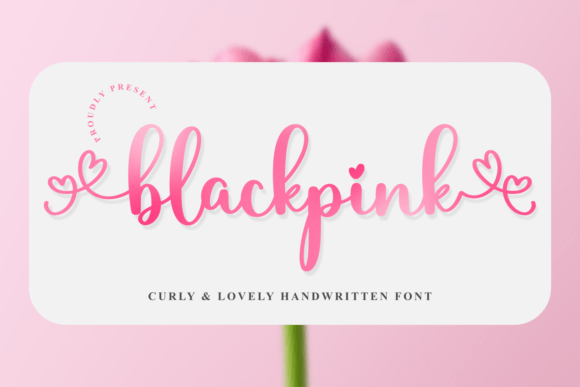
Blackpink Font: The Sweet and Curly Handwritten Script Font to Elevate Your Designs
Are you looking for a font that can add a touch of elegance and playfulness to your designs? Look no further than the Blackpink Font, a beautiful curly and sweet handwritten script font that is sure to make your designs stand out. In this article, we’ll explore the features and benefits of the Blackpink Font, and how you can use it to elevate your logos, labels, branding, invitations, websites, quotes, and more.
What is Blackpink Font?
Blackpink Font is a type of handwritten script font that is designed to mimic the elegant and flowing curves of handwritten writing. It is a curly and sweet font that is perfect for adding a touch of whimsy and playfulness to your designs. The font is highly legible and versatile, making it suitable for a wide range of applications, from logos and branding to invitations and websites.
Features of Blackpink Font
The Blackpink Font has several features that make it a great choice for designers. Some of its key features include:
- Curly and sweet design: The Blackpink Font has a unique curly and sweet design that is sure to add a touch of elegance and playfulness to your designs.
- Handwritten script style: The font is designed to mimic the flowing curves of handwritten writing, giving it a personal and human touch.
- Highly legible: The font is highly legible, making it easy to read and understand, even at small sizes.
- Versatile: The Blackpink Font is suitable for a wide range of applications, from logos and branding to invitations and websites.
Benefits of Using Blackpink Font
There are several benefits to using the Blackpink Font in your designs. Some of the benefits include:
- Adds elegance and playfulness: The Blackpink Font adds a touch of elegance and playfulness to your designs, making them more visually appealing.
- Improves readability: The font’s high legibility makes it easy to read and understand, even at small sizes.
- Increases versatility: The Blackpink Font is suitable for a wide range of applications, making it a great addition to your font library.
- Boosts creativity: The font’s unique design and curly style can help to boost your creativity and inspire new ideas.
How to Use Blackpink Font
The Blackpink Font is easy to use and can be incorporated into a wide range of designs. Here are some ways you can use the font:
- Logos and branding: Use the Blackpink Font to create elegant and playful logos and branding materials.
- Invitations: Add a touch of whimsy and playfulness to your invitations with the Blackpink Font.
- Websites: Use the font to add a personal and human touch to your website’s typography.
- Quotes and posters: The Blackpink Font is perfect for creating eye-catching quotes and posters.
Tips for Using Blackpink Font
Here are some tips for using the Blackpink Font effectively:
- Use it sparingly: Use the Blackpink Font sparingly to avoid overwhelming your design.
- Pair it with other fonts: Pair the Blackpink Font with other fonts to create visual interest and contrast.
- Experiment with sizes and colors: Experiment with different sizes and colors to find the perfect combination for your design.
In conclusion, the Blackpink Font is a beautiful curly and sweet handwritten script font that is sure to elevate your designs. With its elegant and playful design, high legibility, and versatility, it’s a great addition to any font library. Whether you’re looking to create logos, invitations, websites, or quotes, the Blackpink Font is a great choice. So why not give it a try and see how it can boost your designs and make them a true standout?
- What is the Blackpink Font?: The Blackpink Font is a curly and sweet handwritten script font designed to add a touch of elegance and playfulness to your designs.
- Is the Blackpink Font legible?: Yes, the Blackpink Font is highly legible and easy to read, even at small sizes.